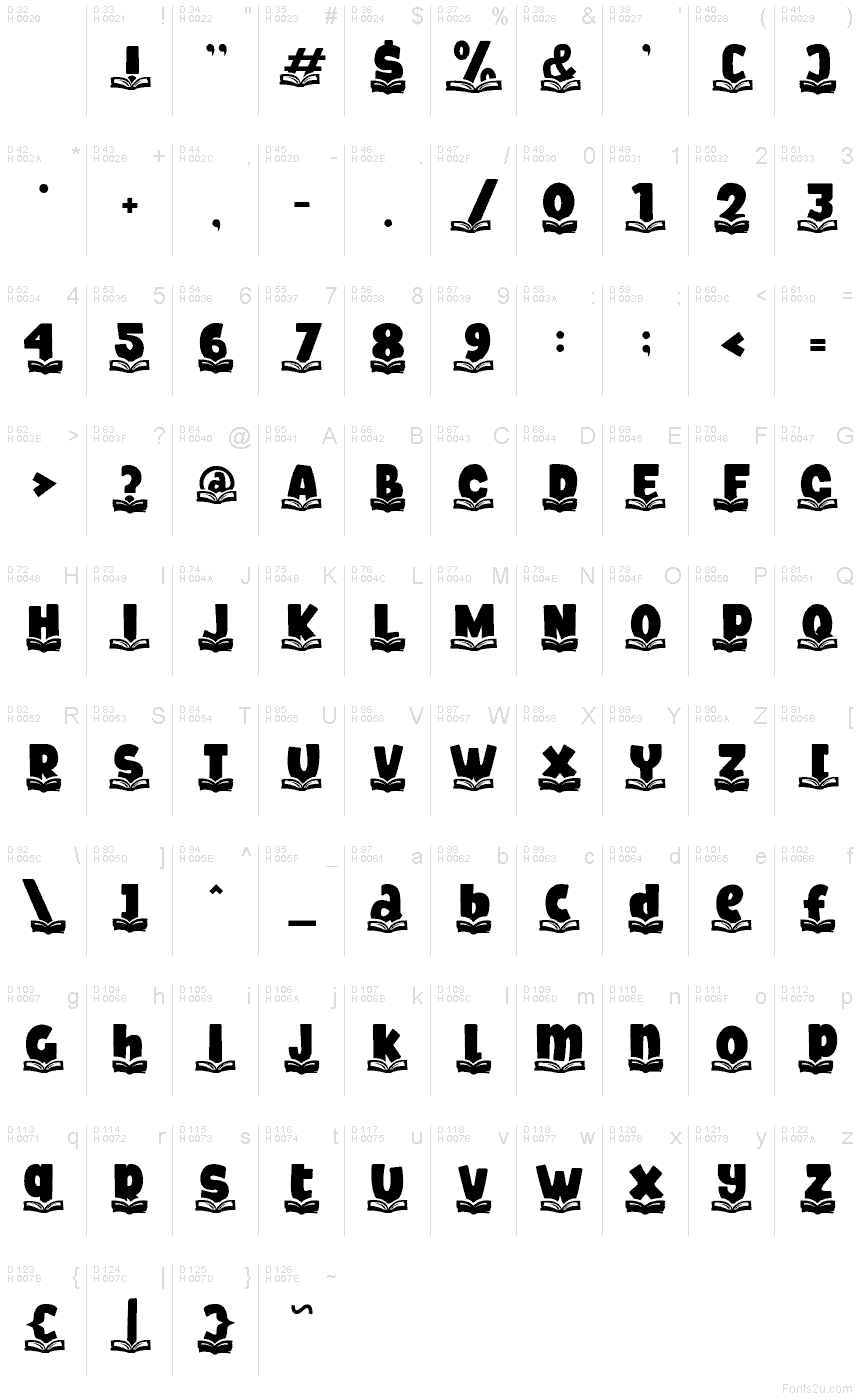
Study Symbol Book
Study Symbol Book font by PutraCetol Studio is a display font that has distinctive modern features. Capital letters with unique perimetric styles are slightly reminiscent of woodcut art which gives the font an artsy feel. The ornamental details shaped in unusual shapes add even more character and visual interest for audiences.